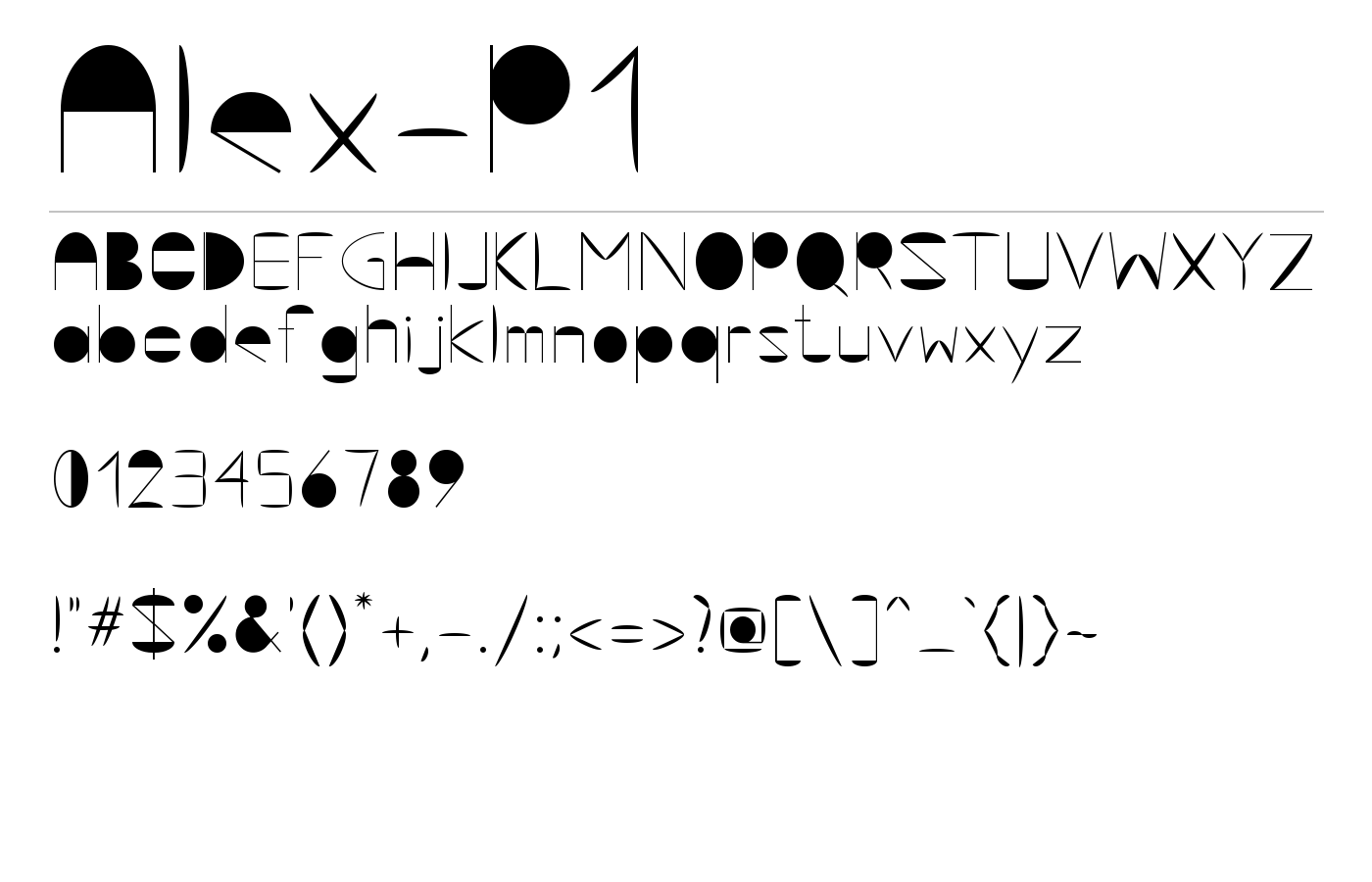
Alex-P1 is a delicate and artistic sans serif font featuring a striking contrast between bold geometric shapes and ultra-thin strokes. Its unique blend of circular and linear elements creates a modern, avant-garde feel ideal for creative branding, editorial headlines, and standout display use where originality and a sleek, futuristic vibe are desired.
Alex-P1 Font